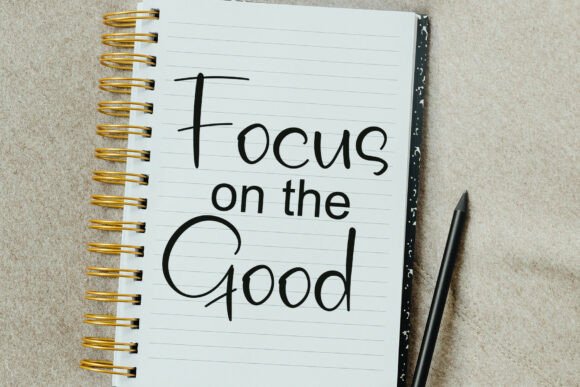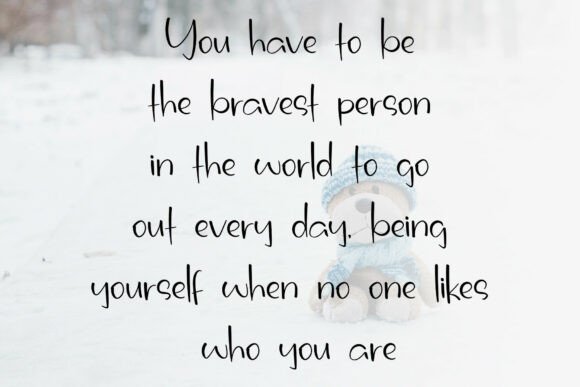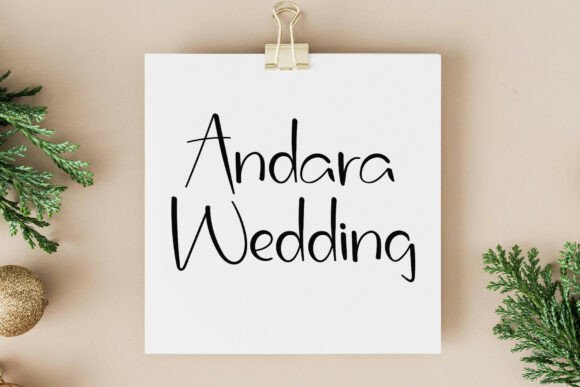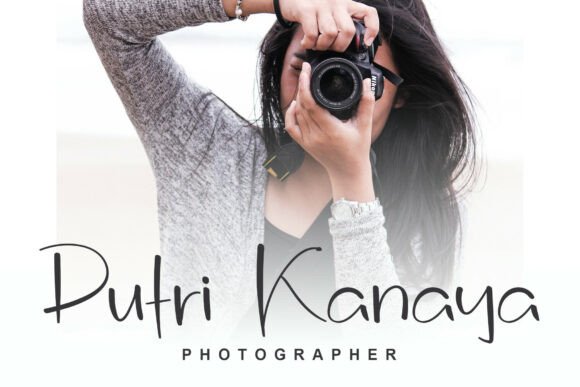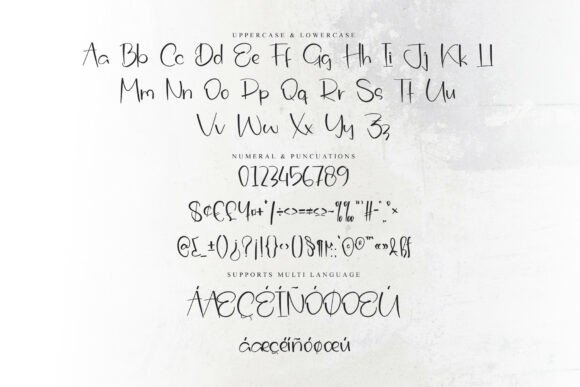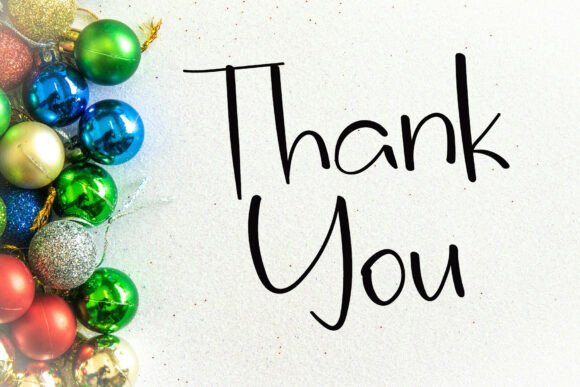
Meet Easter: The Handwriting Font That Brings Warmth and Personality to Your Designs
I’ll never forget the time I was working on a project for a cozy café, trying to find the perfect font to capture their warm and inviting atmosphere. I had tried countless fonts, but none seemed to fit the bill. That was until I stumbled upon Easter, a beautifully crafted handwriting font that blended the charm of natural handwriting with contemporary elegance. In this article, I’ll share my experience with Easter, and explore how you can use this gorgeous font to elevate your designs.
A Personal Design Moment: Finding the Perfect Font
As designers, we’ve all been there – scrolling through font after font, trying to find the one that perfectly captures the essence of our project. I was working on a greeting card design, and I wanted a font that would add a personal, heartfelt touch. That’s when I discovered Easter, and it instantly became my go-to font. The flowing, organic strokes and effortlessly stylish handwriting made it perfect for adding a touch of warmth and personality to my design.
What I Love About Easter ✨
- 💫 Beautifully crafted handwriting with a natural, organic feel
- ✅ Effortlessly stylish and elegant, perfect for adding a touch of sophistication to your designs
- 🎨 Highly versatile, suitable for a wide range of design projects, from logos and greeting cards to packaging and more
- 🌈 Gorgeous OpenType features, glyphs, and stylistic alternates to add an extra layer of creativity to your designs
- ⚠️ Easter is a highly stylized font, which may not be suitable for very formal or traditional designs
- ⚠️ Some users may find the font a bit too ornate or decorative for certain projects
Exploring OpenType Features, Glyphs, and Stylistic Alternates
Easter comes with a range of OpenType features, glyphs, and stylistic alternates that can add an extra layer of creativity to your designs. Here are a few examples:
- Swashes: Add a touch of elegance to your designs with Easter’s beautiful swashes
- Ligatures: Use Easter’s ligatures to create stunning, connected letterforms
- Stylistic alternates: Experiment with Easter’s stylistic alternates to create unique and creative designs
Easter was designed with the goal of creating a font that would bring warmth and personality to designs. The designer wanted to create a font that would feel like it was written by hand, with all the imperfections and quirks that come with it. The result is a font that’s both elegant and approachable, perfect for adding a touch of sophistication to your designs.
Q: What makes Easter unique?
A: Easter’s unique blend of natural handwriting and contemporary elegance makes it stand out from other fonts.